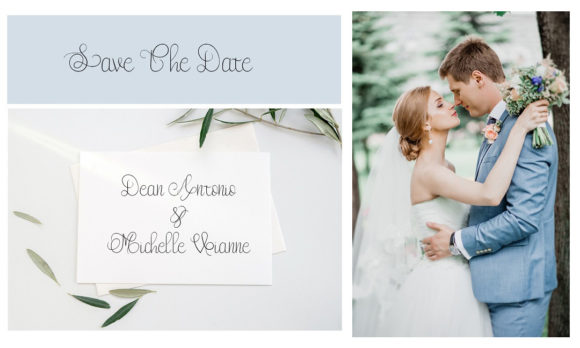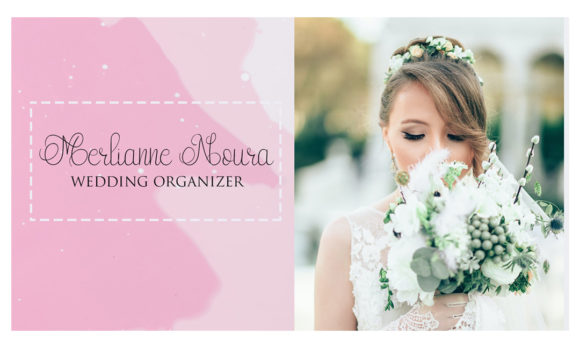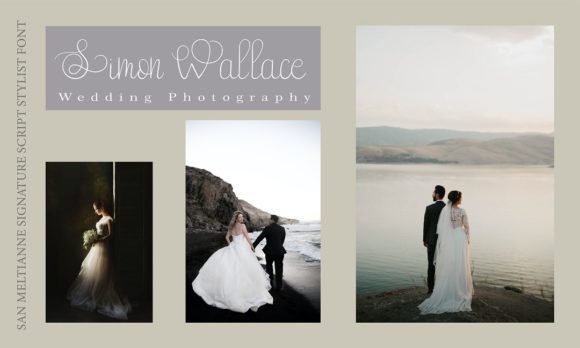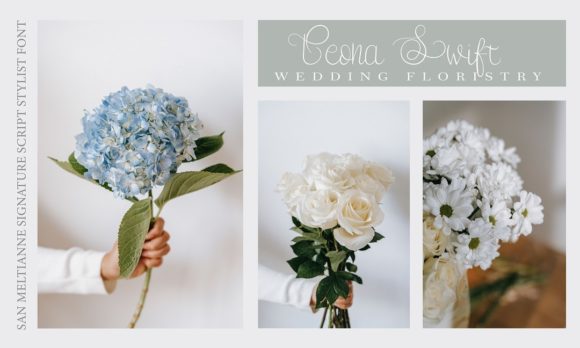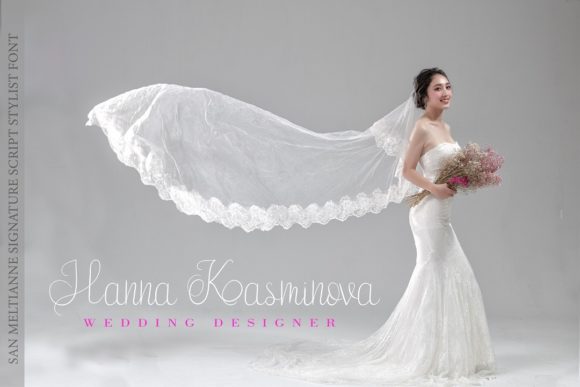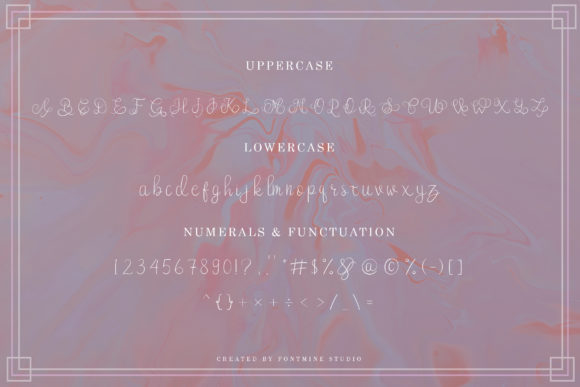
Introduction to San Meltianne Font
Have you ever been browsing through design inspiration boards and stumbled upon a beautifully crafted logo or invitation that caught your eye? For me, it was a stunning wedding invitation with a elegant script font that made me pause and say “wow”. That moment sparked my curiosity and led me to explore the world of high-quality fonts that can elevate any design project. Among the many options available, one font stood out to me – the San Meltianne Font.
This beautiful script font is a design resource that can add a touch of class and sophistication to any creative project. With its refined and modern look, the San Meltianne Font is perfect for logos, branding, invitations, stationery, and much more. Whether you’re a professional designer or a hobbyist, this font is a valuable addition to your design arsenal.
Key Features of San Meltianne Font
- High-quality, professional font design suitable for creative projects and design resources.
- Designed with a unique, elegant style that can add a touch of sophistication to any creative project.
Honest Review: San Meltianne Font
As a designer, I’m always on the lookout for high-quality fonts that can elevate my creative projects. The San Meltianne Font caught my eye, and I decided to give it a try.
- ✨ The font has a unique, modern aesthetic that’s perfect for contemporary designs.
- ⚠️ The font is not as versatile as some other options, so it may not be suitable for all types of projects.
- ⚠️ The character set is limited, which could be a problem for designers working on complex projects.
Overall, I think the San Meltianne Font is a solid design resource that can be a great addition to any creative project. While it may not be perfect, its unique style and free download make it worth checking out. With a little creativity, it can be used to create some truly stunning designs.
Tips for Getting the Most Out of San Meltianne Font
San Meltianne Font is a versatile design resource that can be used for various creative projects, including logos, brochures, and social media graphics. It’s also a great font to use for free download and incorporation into your design portfolio.
Alternatives to San Meltianne Font
Great Vibes is a high-quality, elegant script font perfect for creative projects that require a touch of sophistication. It features a transparent background, making it ideal for overlaying text on images. Great Vibes is available for free download, making it a valuable design resource.
Compared to San Meltianne Font, Great Vibes has a more refined and cursive feel, making it suitable for projects that require a more formal tone.
Alex Brush is a beautiful, handwritten font that exudes a sense of creativity and playfulness. It’s perfect for design projects that require a touch of whimsy and imagination. Alex Brush features a transparent background and is available for free download.
Compared to San Meltianne Font, Alex Brush has a more rustic and handmade feel, making it suitable for projects that require a more organic and earthy tone.
Pacifico is a high-quality, elegant serif font that’s perfect for creative projects that require a touch of sophistication. It features a transparent background, making it ideal for overlaying text on images. Pacifico is available for free download, making it a valuable design resource.
Compared to San Meltianne Font, Pacifico has a more classic and timeless feel, making it suitable for projects that require a more traditional tone.